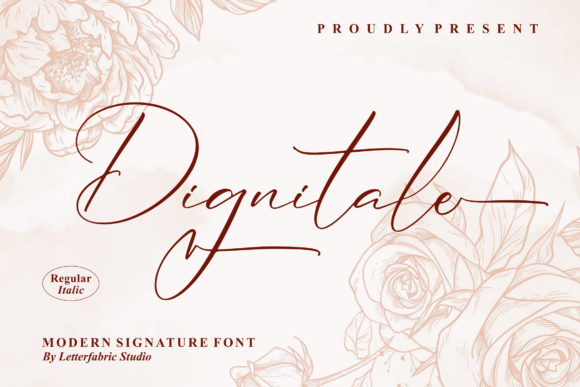
Dignitale Font: Elevate Your Designs with Elegance and Sophistication
In the world of typography, a well-crafted font can make all the difference in elevating your designs to new heights. For designers and crafters seeking a touch of elegance and sophistication, the Dignitale font is an exquisite choice. This beautifully handwritten font is masterfully designed to become a true favorite, boasting classy calligraphic influences while feeling contemporary and fresh.
The Unique Charm of Dignitale Font
Dignitale is more than just a font – it’s an experience. Its intricate, handwritten strokes exude a sense of luxury and refinement, making it perfect for projects that demand a high level of sophistication. From wedding invitations and branding materials to packaging and digital media, Dignitale adds a touch of class and poise to any design.
Key Features of Dignitale Font
- Exquisite Handwritten Design: Dignitale’s elegant, cursive strokes are meticulously crafted to provide a unique and refined look.
- Classy Calligraphic Influences: The font seamlessly blends traditional calligraphy with modern sensibilities, making it versatile and stylish.
- PUA Encoded: Dignitale is PUA (Private Use Area) encoded, allowing easy access to all glyphs and swashes. This feature makes it incredibly user-friendly, enabling designers to explore a wide range of creative possibilities.
- Contemporary and Fresh Feel: Despite its classic roots, Dignitale feels remarkably contemporary, ensuring your designs stay current and on-trend.
Applications of Dignitale Font
The versatility of Dignitale font makes it suitable for a wide array of design projects. Here are some popular applications:
- Wedding and Event Stationery: Create stunning wedding invitations, save-the-date cards, and event posters that set the tone for a sophisticated celebration.
- Branding and Logo Design: Use Dignitale to craft elegant logos and brand identities that convey luxury, quality, and refinement.
- Packaging Design: Elevate product packaging with a touch of class, making your products stand out on store shelves.
- Digital Media: Enhance your digital content, including social media graphics, blog headers, and website designs, with a sophisticated and modern font.
Tips for Using Dignitale Font
To get the most out of Dignitale font, consider the following tips:
- Pair with Complementary Fonts: Combine Dignitale with clean, sans-serif fonts to create a striking contrast and add visual interest to your designs.
- Experiment with Swashes and Glyphs: Take advantage of Dignitale’s PUA encoding to explore different swashes and glyphs, adding a personal touch to your designs.
- Adjust Font Sizes and Weights: Play with font sizes and weights to create a hierarchy of text and add depth to your designs.
Dignitale font is a true gem for designers and crafters seeking to infuse their projects with elegance and sophistication. Its exquisite handwritten design, classy calligraphic influences, and PUA encoding make it an exceptional choice for a wide range of applications. Whether you’re working on wedding stationery, branding materials, or digital media, Dignitale is sure to become your new favorite font. Discover the power of Dignitale and elevate your designs to new heights of refinement and style.